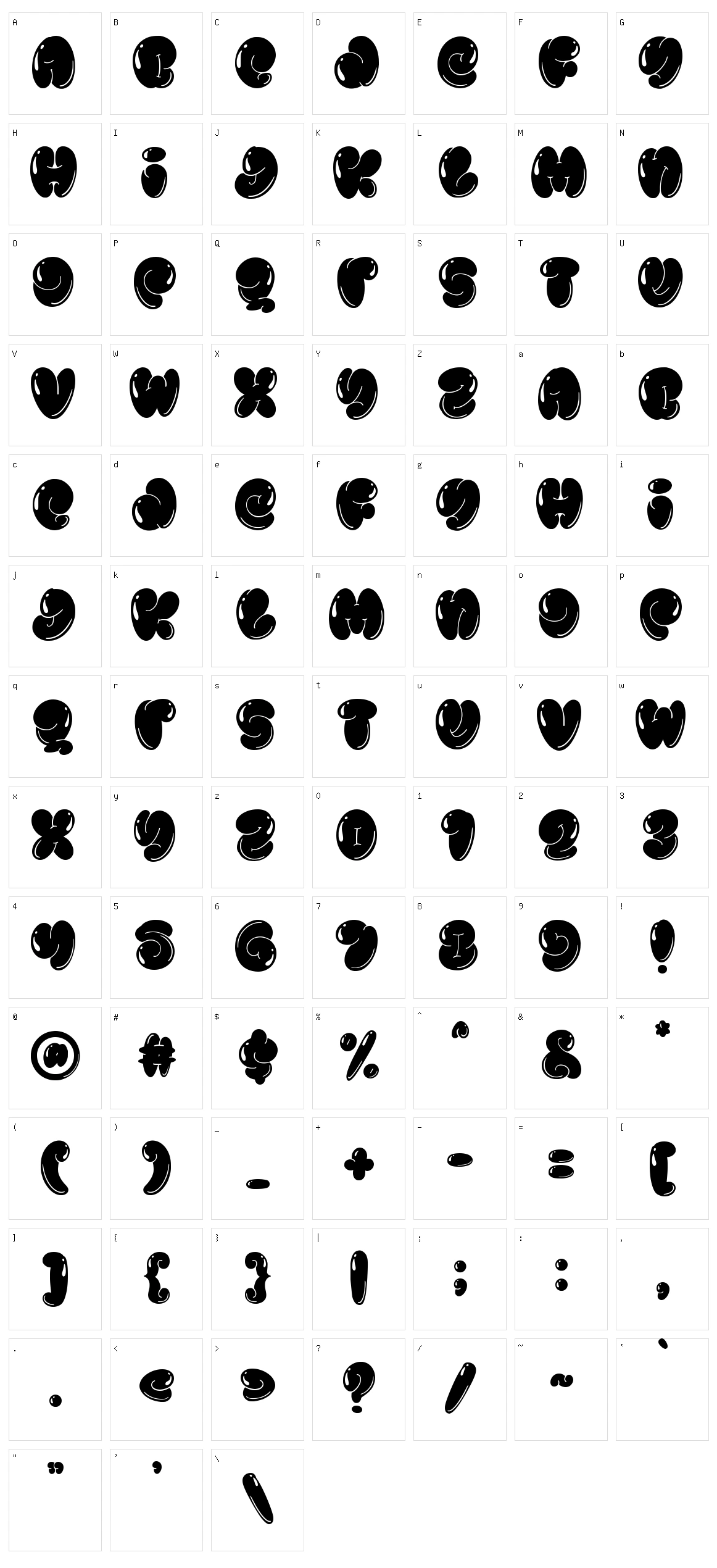
JELLY JULY
- solid & shiny font -
Jelly July is a cute, quirky and incredibly unique display font.
Add this beautiful display font to each of your creative ideas and notice how it makes them stand ou.